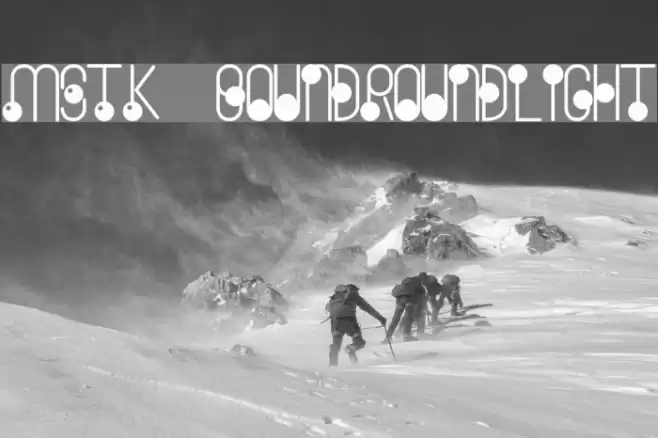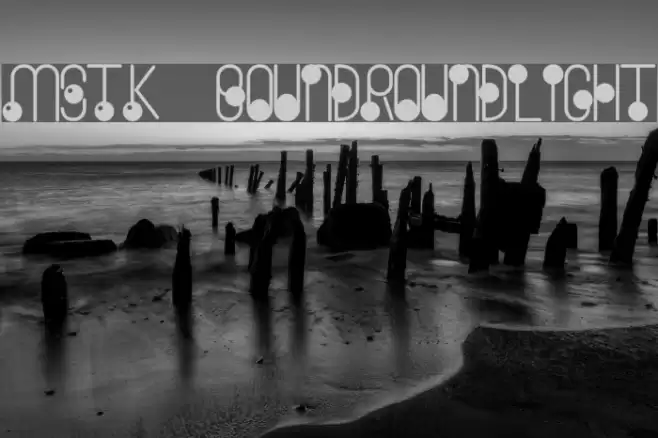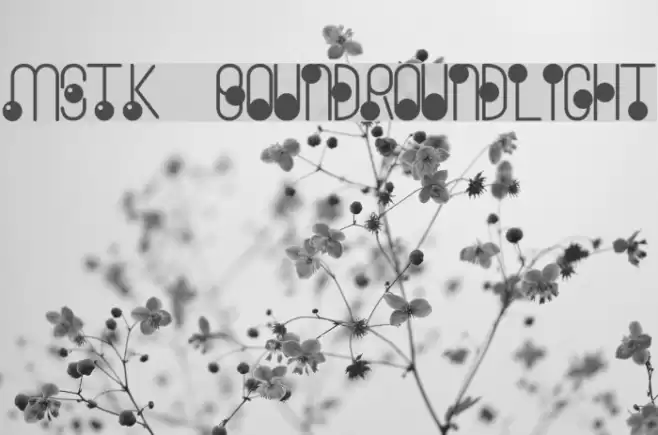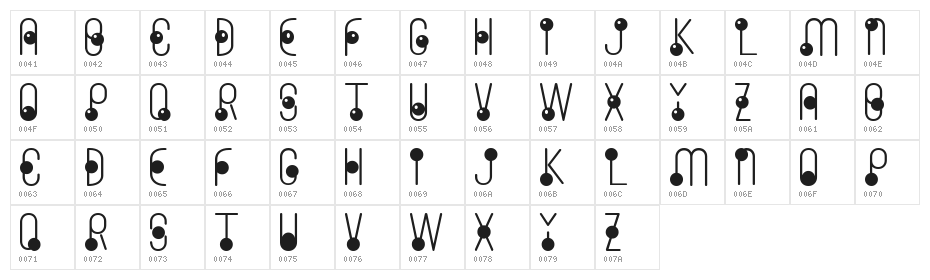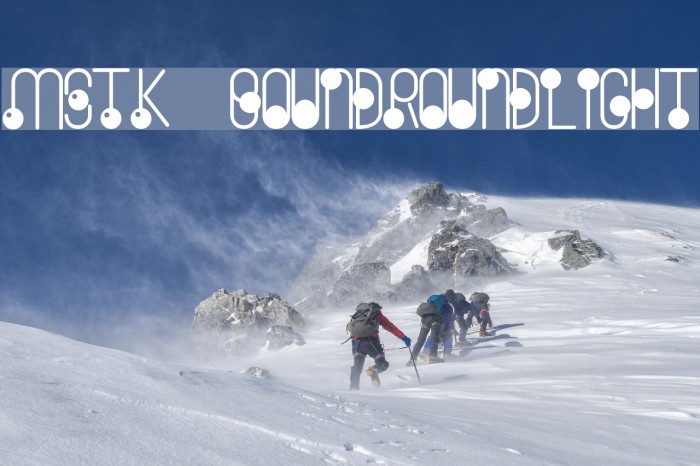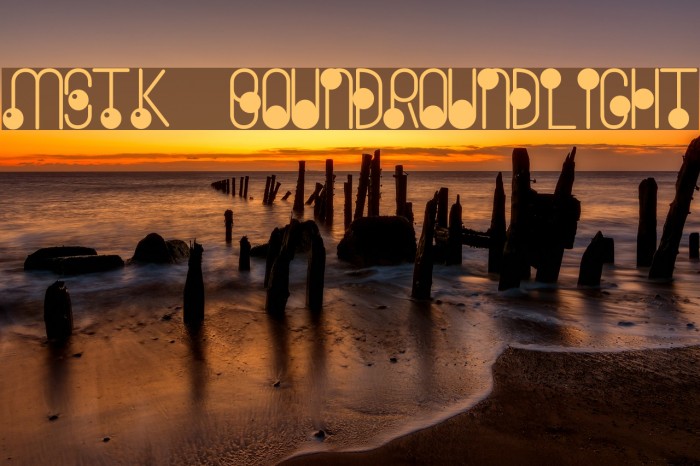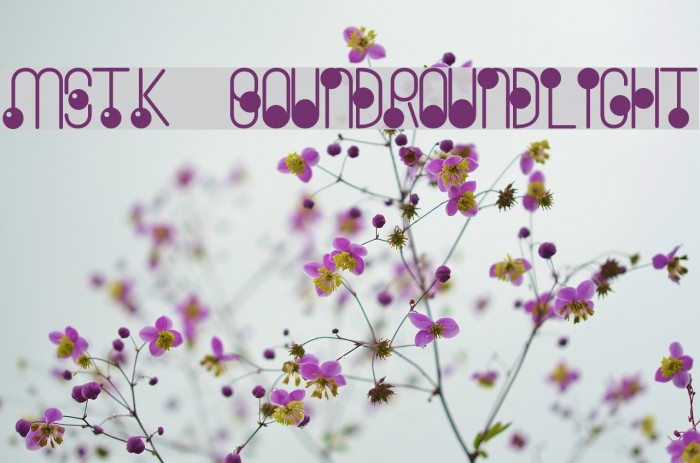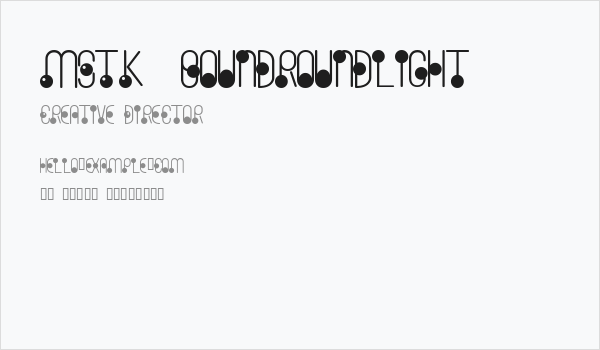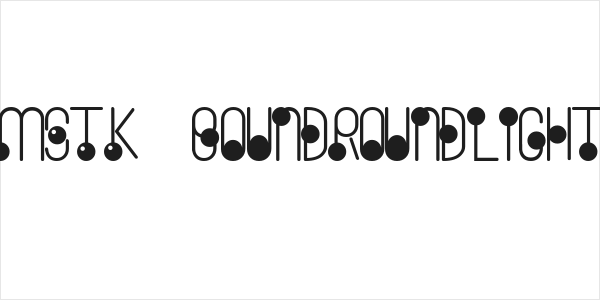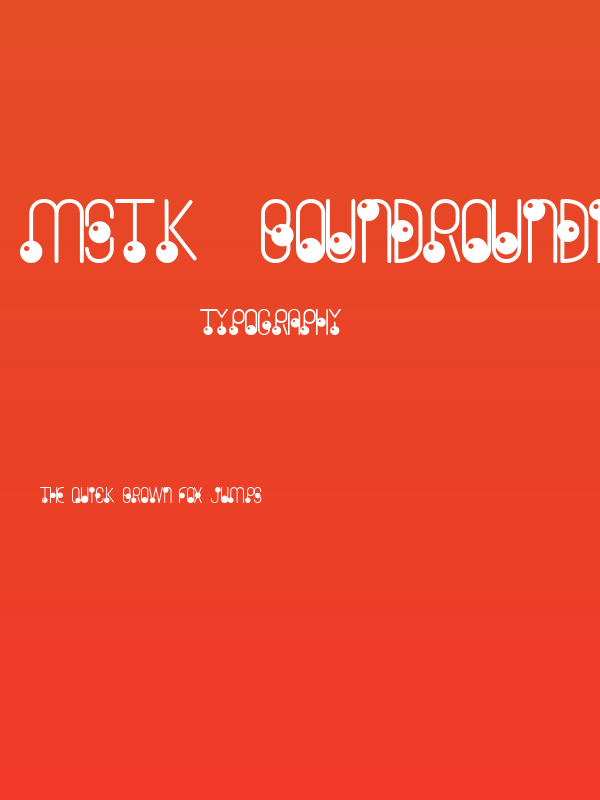
MSTK boundroundlight Font
MSTK boundroundlight Description
This font features a unique and playful design with circular elements integrated into the letterforms, creating a whimsical and modern aesthetic. The uppercase and lowercase letters are consistent in style, with bold, rounded shapes that give the font a distinctive look. The characters are evenly spaced, and the overall design is clean and minimalistic, making it suitable for creative and artistic projects. The font's geometric nature and bold presence make it stand out, while the rounded edges add a friendly and approachable feel.
A playful, modern font with bold, rounded shapes and circular elements from Uncategorized fonts.